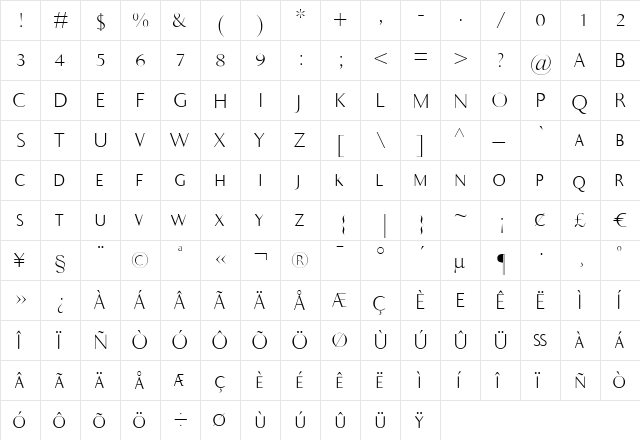
Ela Sans XLight Caps Regular
Design Context for Ela Sans XLight Caps Typeface
Ela Sans XLight Caps is a composed and adaptable typeface that performs quietly and consistently across a wide range of design contexts. The delicate stroke weight brings airiness and refinement to layouts.